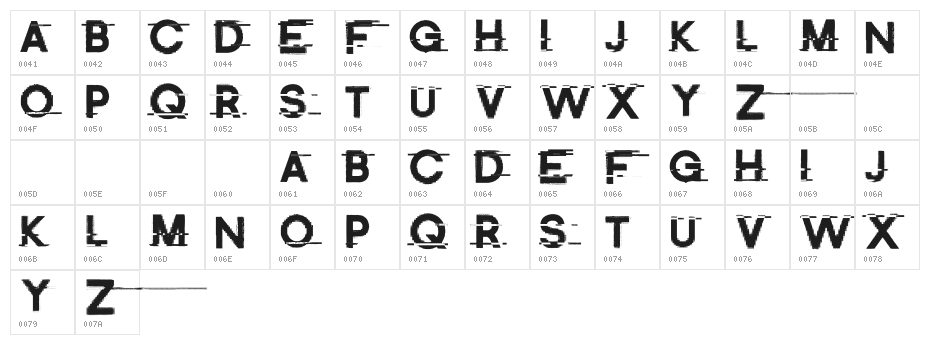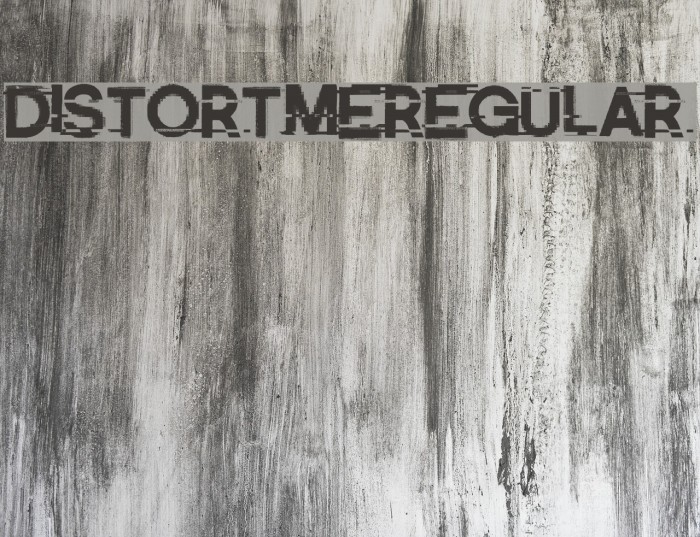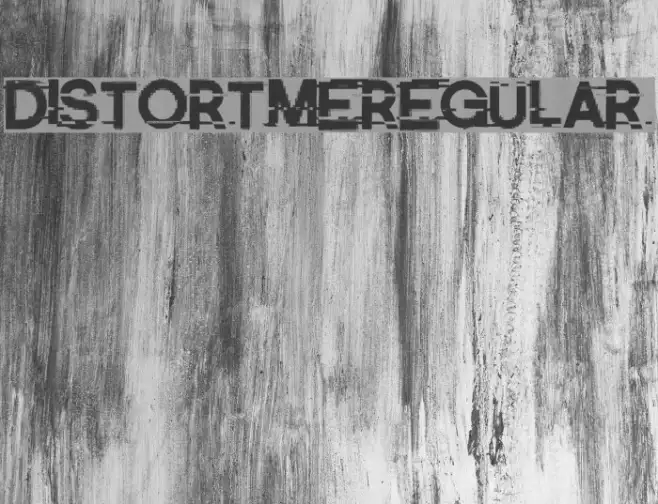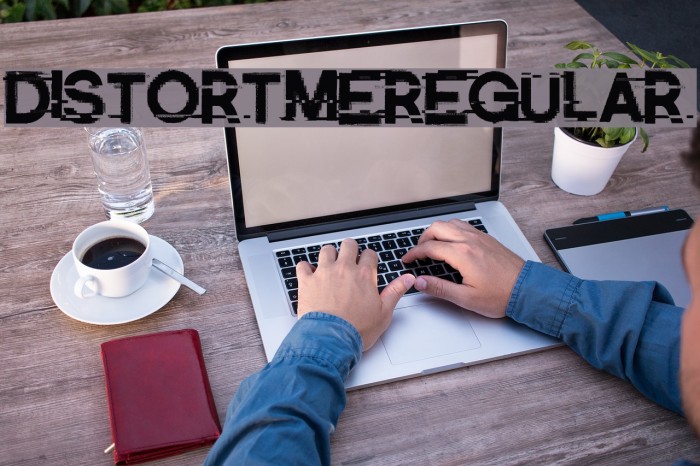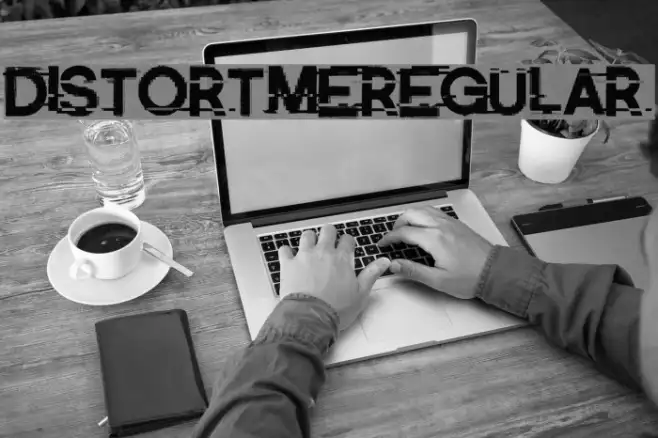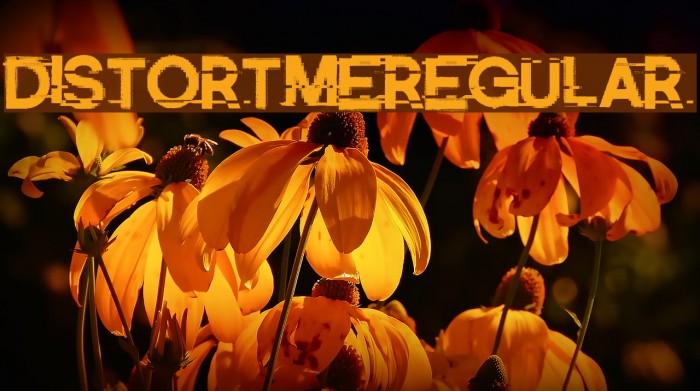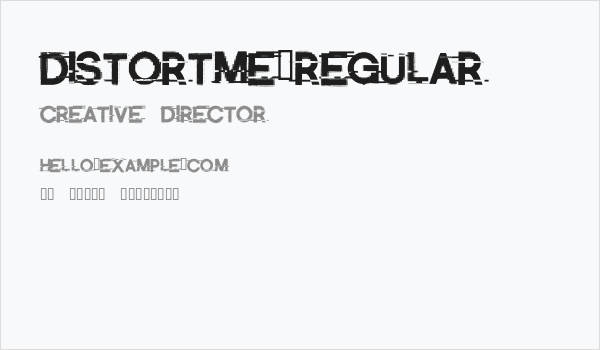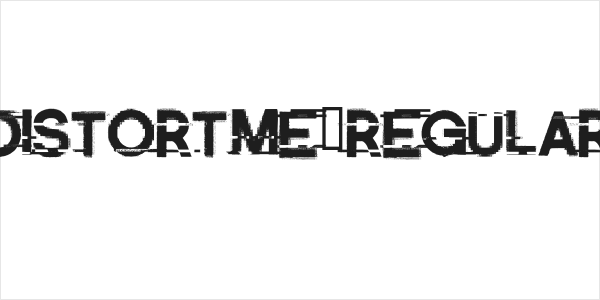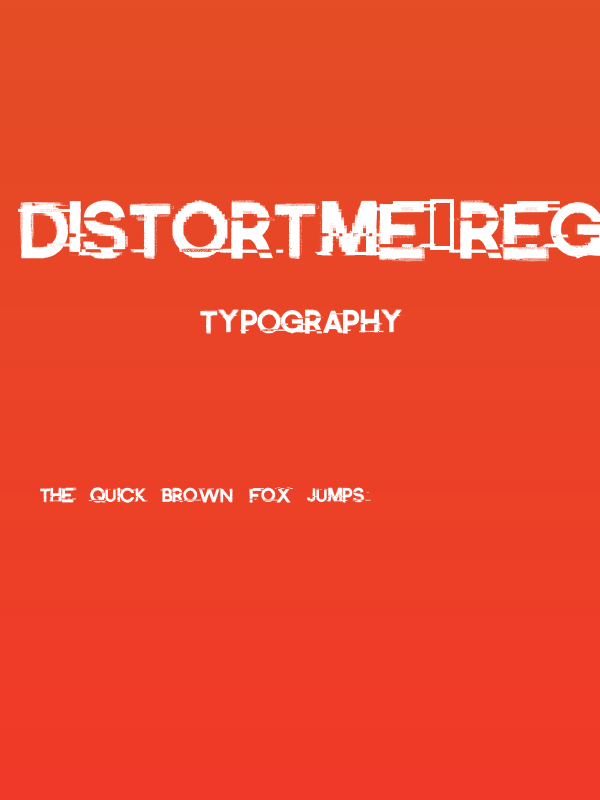
DistortMe-Regular Font
DistortMe-Regular Description
This font features a unique, distorted style that gives an impression of glitch or digital interference. The uppercase letters are bold and heavily stylized, with horizontal lines cutting through the characters, creating a fragmented look. The design is modern and edgy, suitable for projects that require a sense of disruption or technological themes. The characters are evenly spaced, but the distortion adds an element of unpredictability. This font is ideal for creative projects that aim to capture attention and convey a sense of modernity and innovation.
| Proposed Projects | Ideal for digital art, album covers, video game titles, and tech-themed posters. |